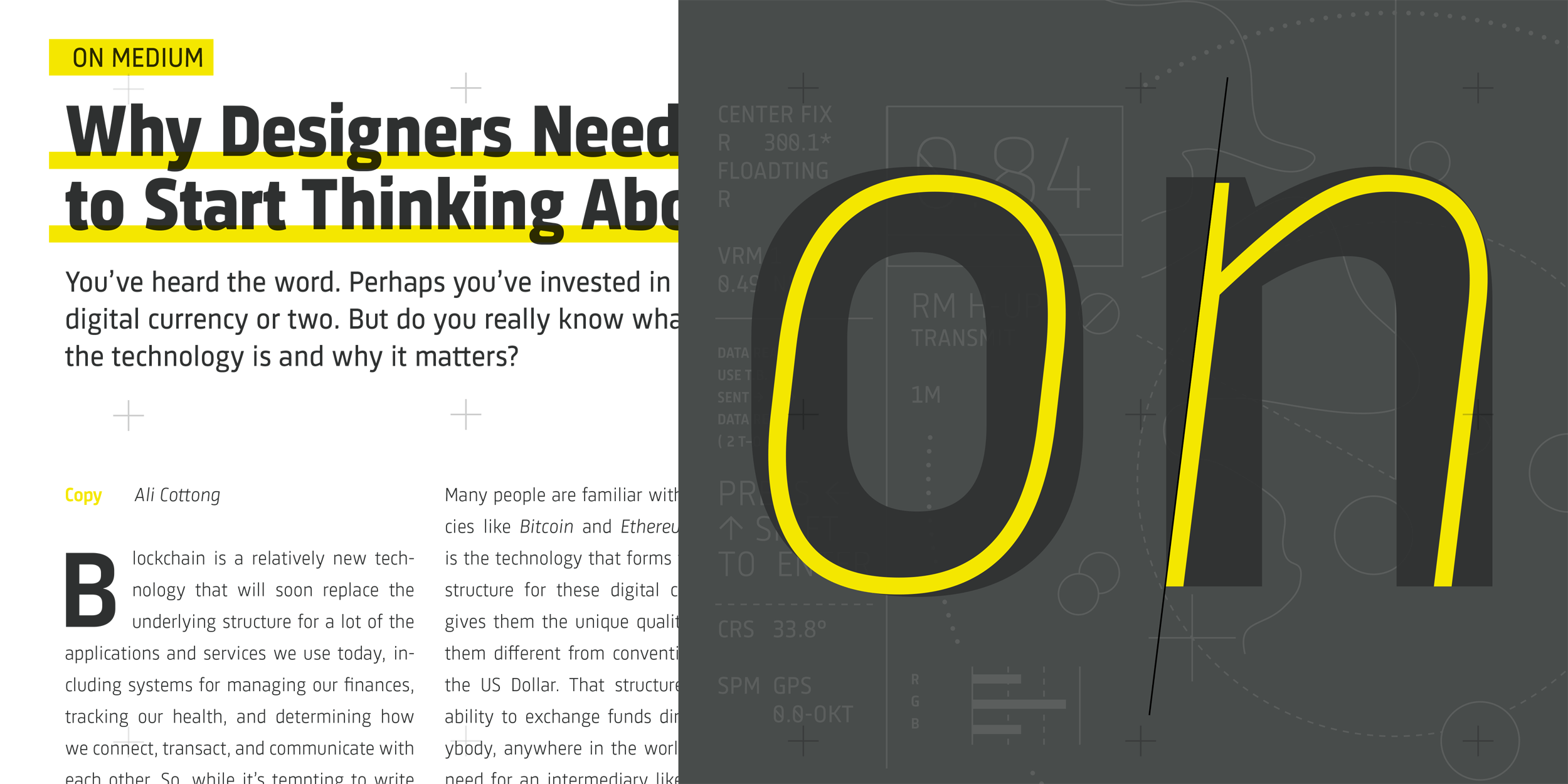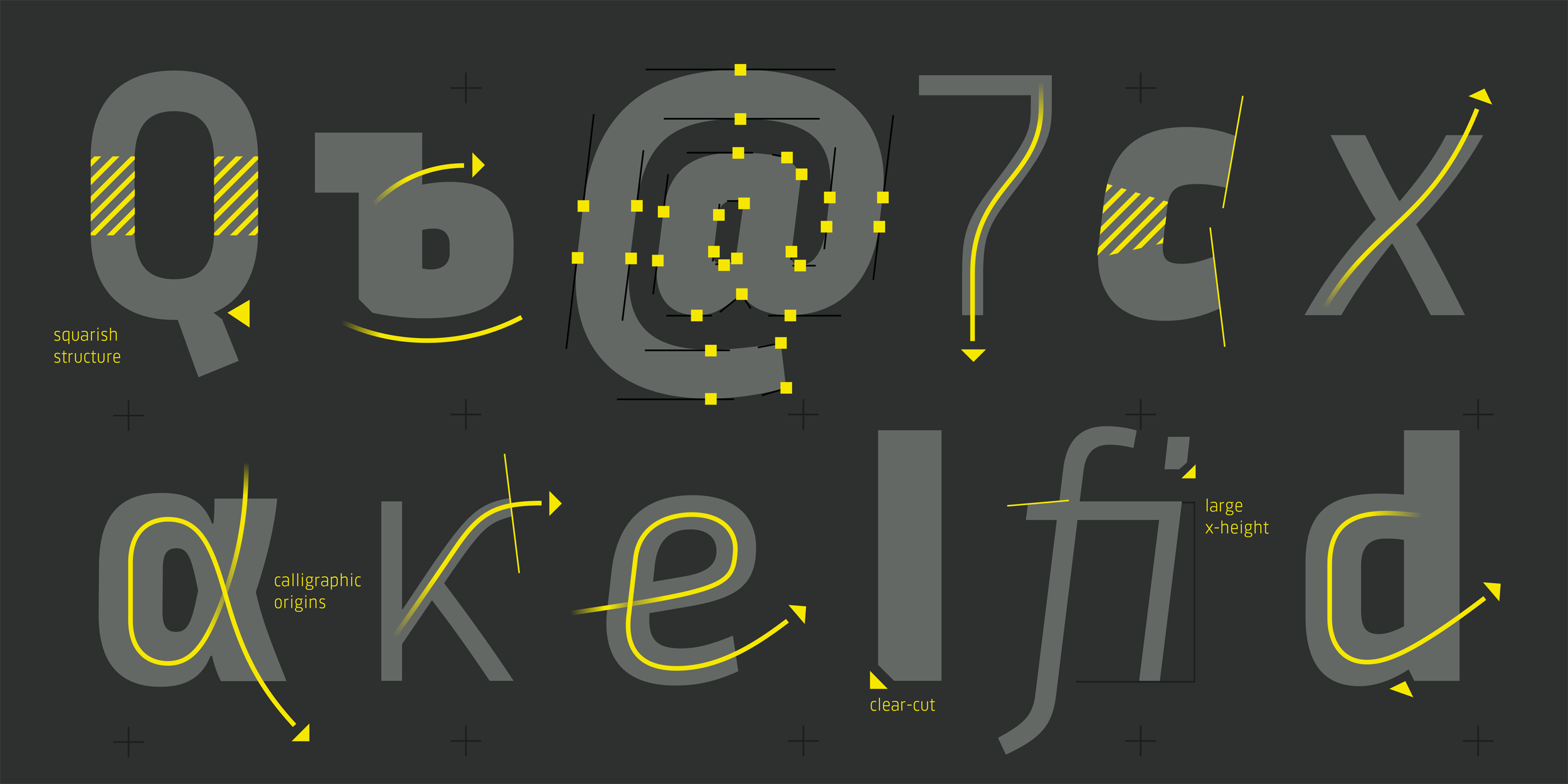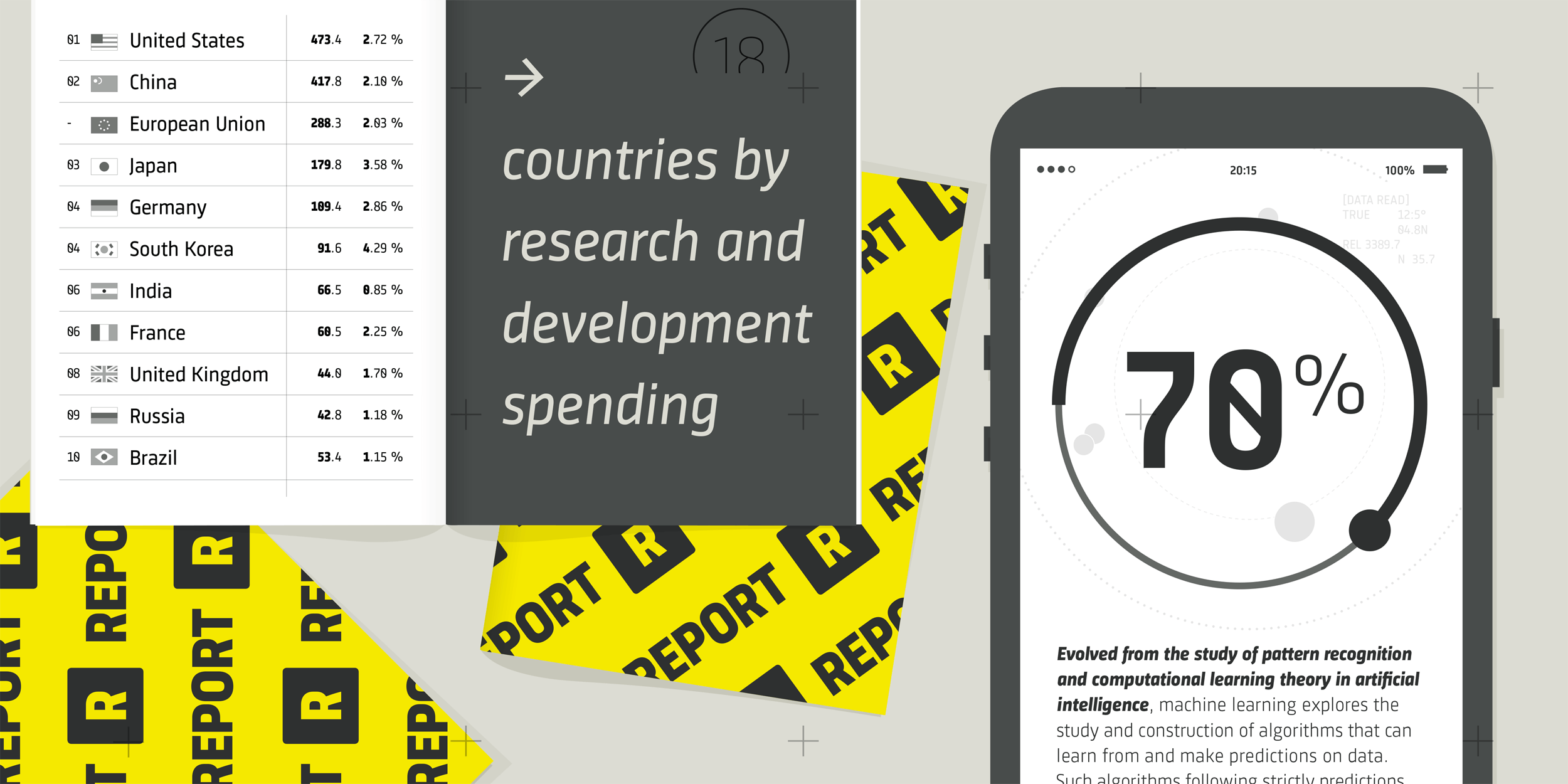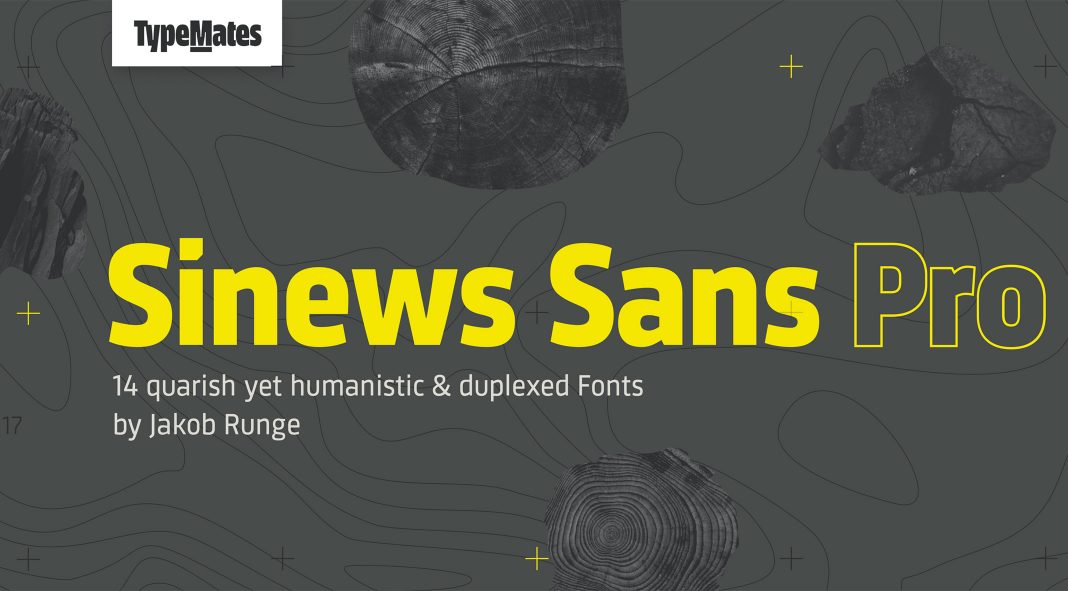
Sinews Sans Pro, a new font family for interfaces recently published by TypeMates.
Hello folks, there it is, a new (yet old) font family from foundry TypeMates. Originally published in 2012, the Sinews Sans Pro family has been extensively renovated for the regional brands Balay, Profilo, Pitsos, and Constructa of BSH Hausgeräte GmbH. Published just a few days ago, the font is now available for everyone with Latin, Cyrillic, and Greek language support, completely new curves and hinting for the use on screen.
The contemporary proportions and open forms provide a technical look and feel. Across seven weights and styles, each character is based on the same width, which makes Sinews Sans Pro a great choice for all kinds of interface design and typography. At large sizes, you will probably notice certain details of calligraphic origins such as the clipping of the letters ‘l’ and ‘i’. Jakob Runge, the designer of Sinews Sans, has combined this with an industrial touch, which gives the family its unique appearance.